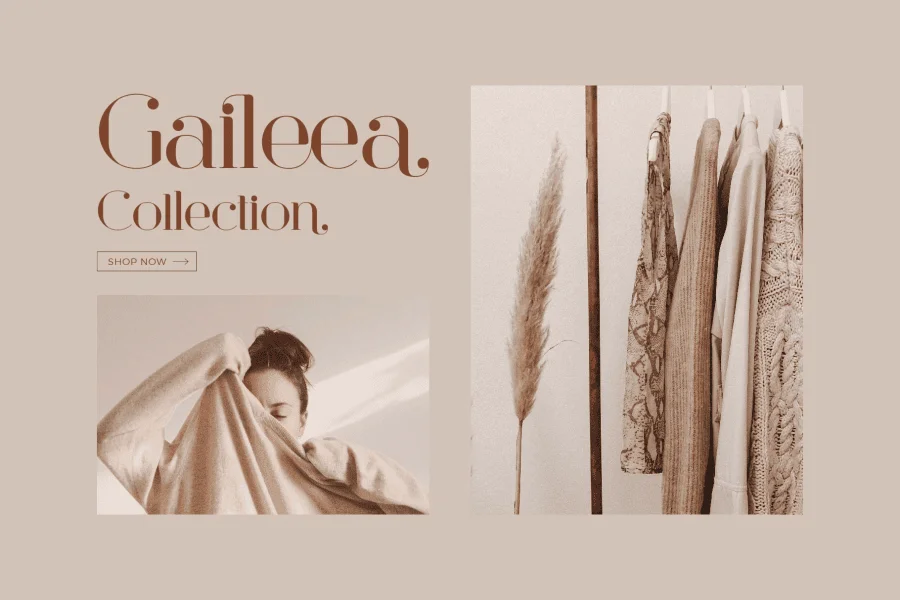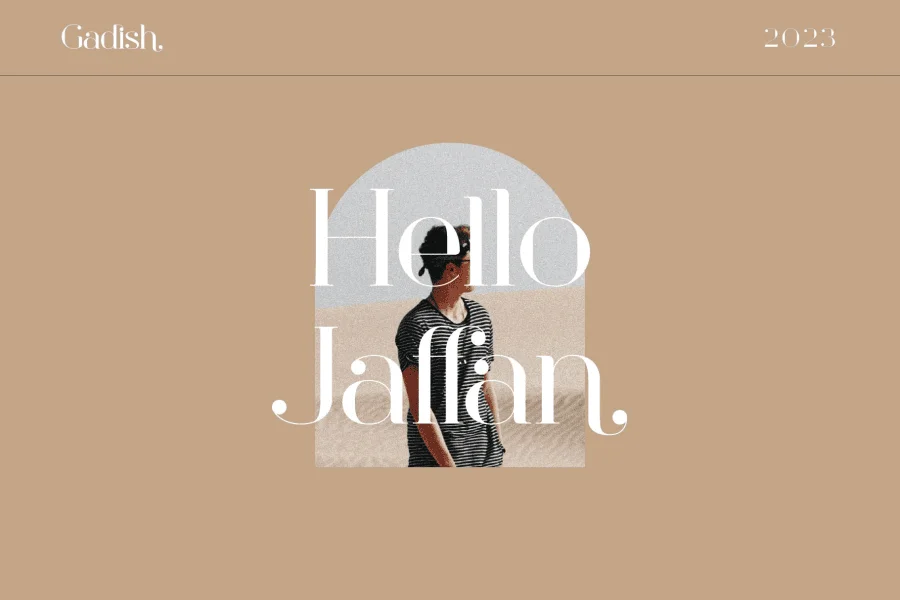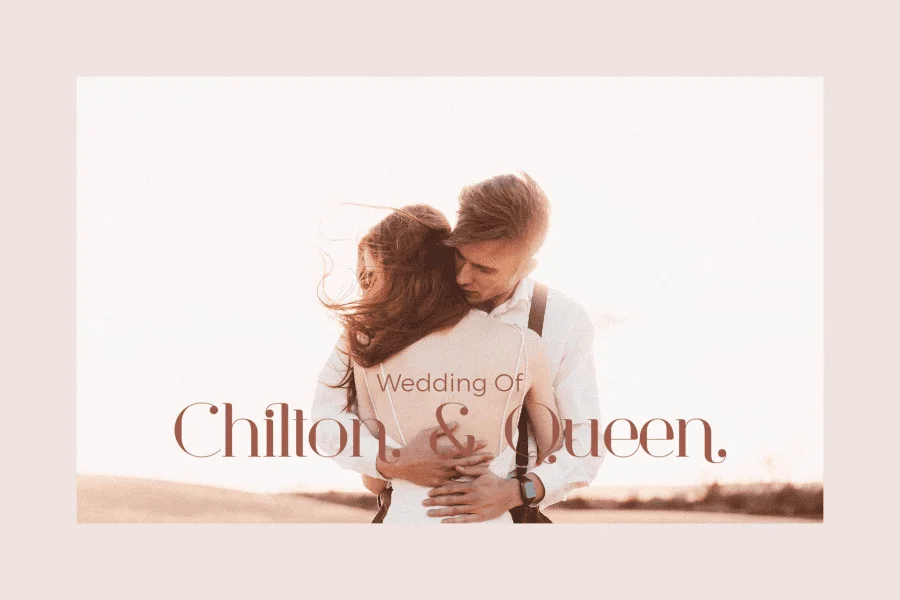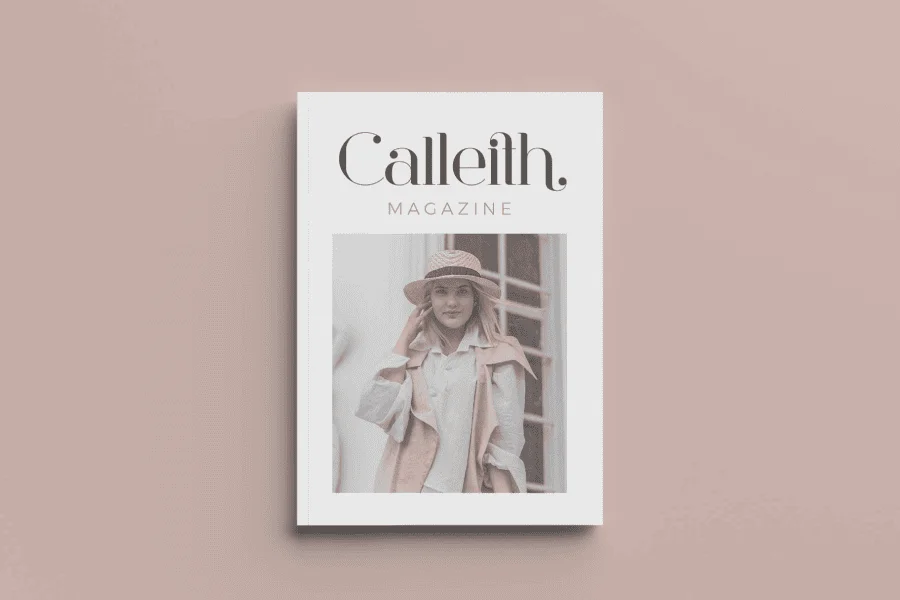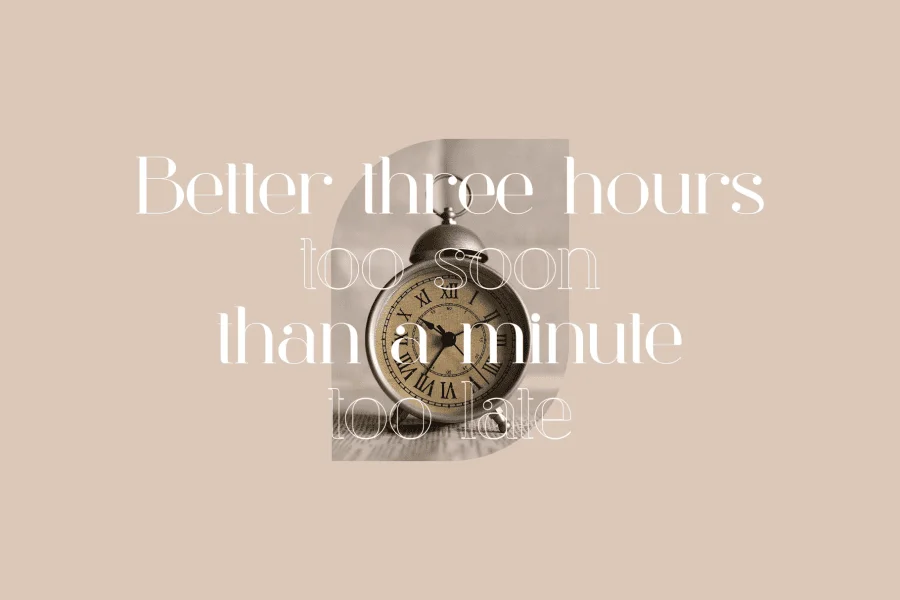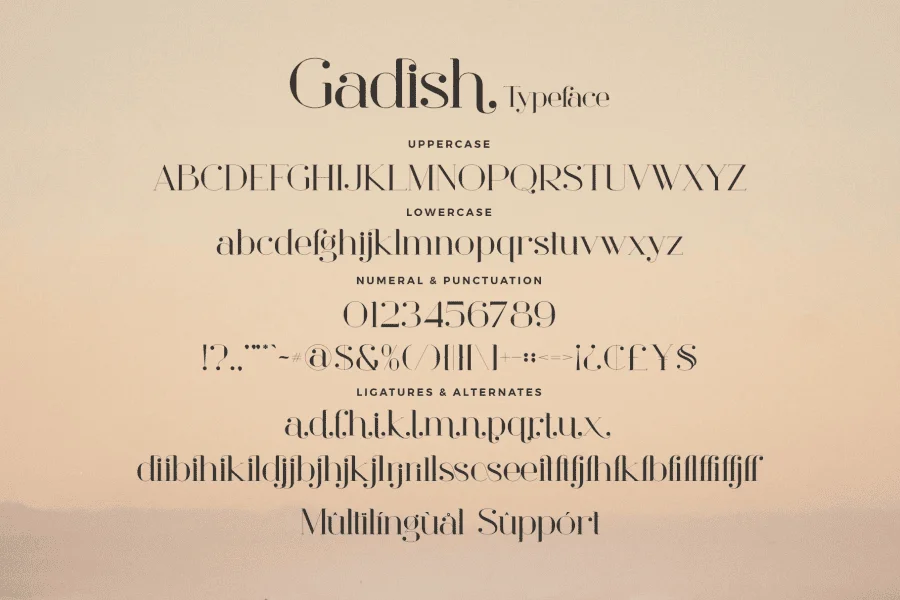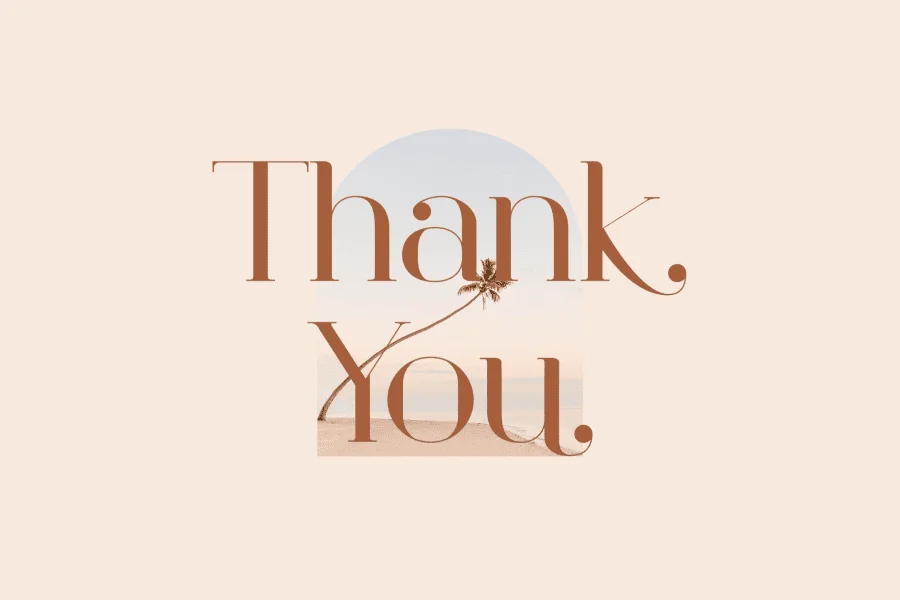
Gadish is an elegant serif display typeface characterized by its extreme high contrast and fluid, architectural curves. The letterforms feature a transition between robust, structural downstrokes and thin horizontal lines, creating a striking visual rhythm. Its unique identity is defined by playful, circular ball terminals that punctuate vertical stems, paired with sweeping, teardrop-like curves. This blend of sharp, planar cuts and soft, rounded elements gives the typeface a sophisticated yet contemporary personality.
Designed for high-impact editorial and branding applications, this typeface excels in large-format settings. It is perfectly suited for luxury fashion mastheads, lifestyle magazine covers, cosmetic packaging, and upscale wedding stationery. The delicate balance of its thin strokes and bold stems ensures that Gadish commands attention on both printed pages and digital interfaces, lending an air of refined modernism to any design layout.